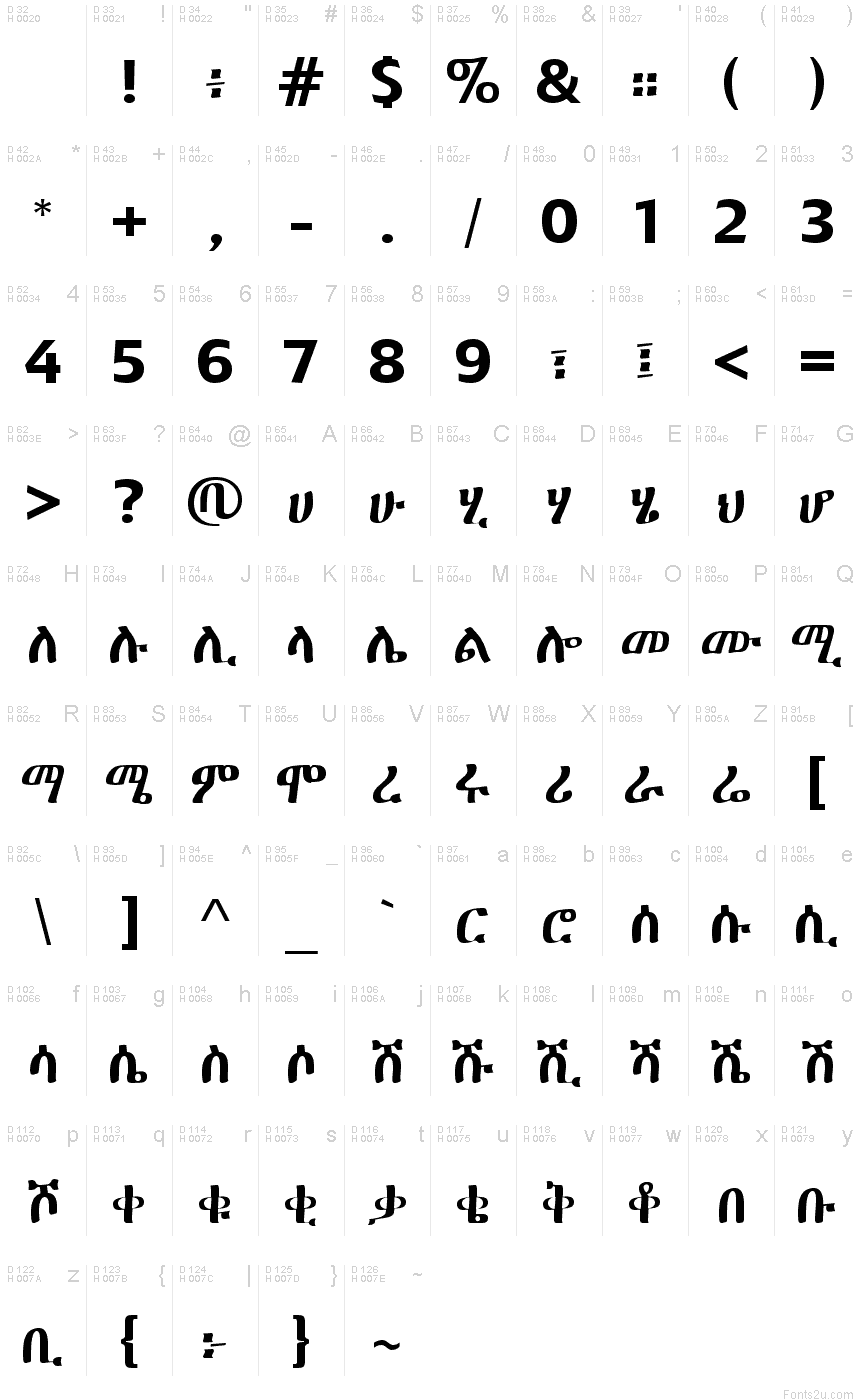
GF Zemen Primary
GF Zemen Primary, designed by Bruk Asrat of Ge'ez Frontiers Foundation, is a free Ethiopic display font with broad, emphatic forms. Its letters combine heavy rounded strokes, abrupt narrow joins, and flared details in a lively, uneven silhouette.
Festival posters and cultural branding both benefit from the forceful shapes, which can read as celebratory or authoritative depending on the surrounding imagery. The same sculptural weight also suits music packaging and event merchandise, especially when lettering becomes a central graphic element. In publishing, it can give Ethiopic cover lines and section openers a strong, distinctly regional voice.
This is the Ge'ez Frontiers Foundation's Zemen class font. Based on the GohaTibeb HP Zemen font. TrueType Font Artist:- Bruk Asrat